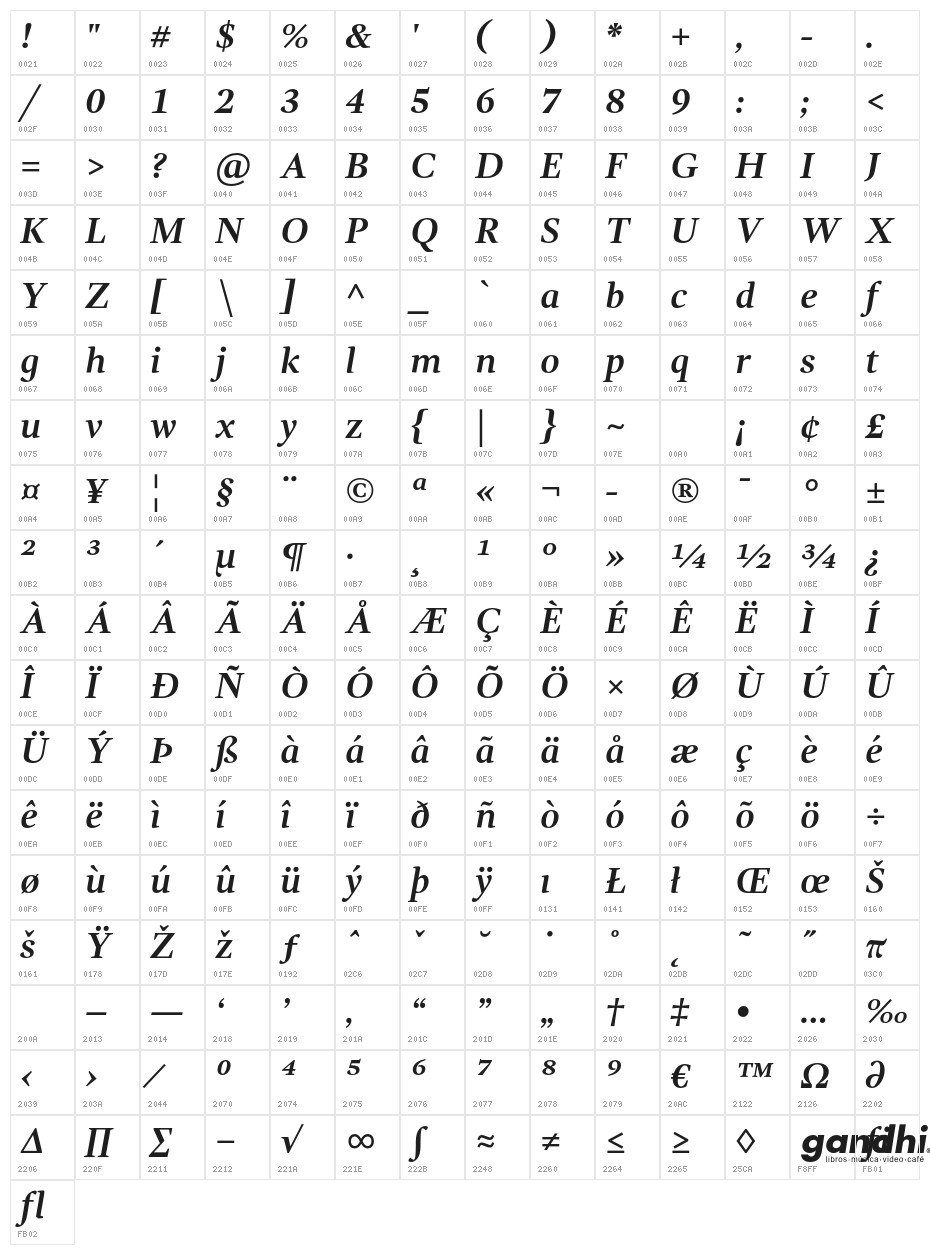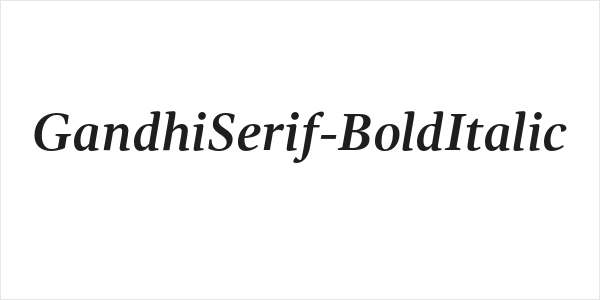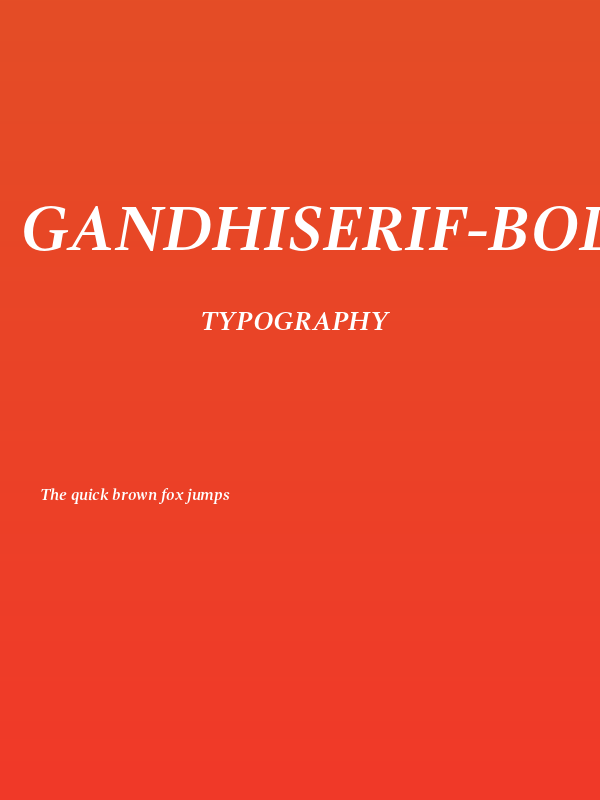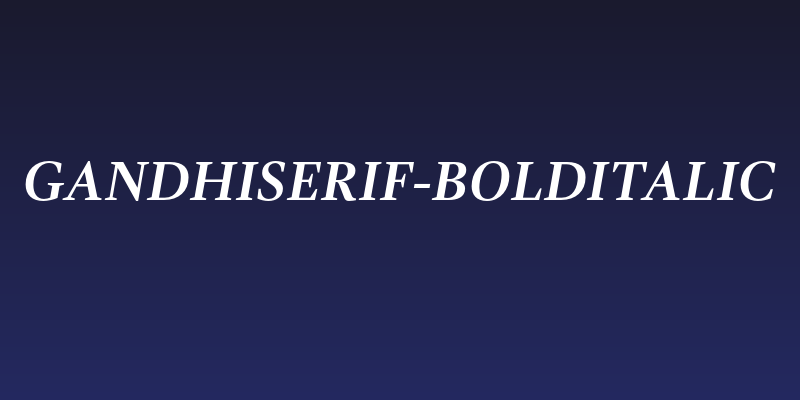
GandhiSerif-BoldItalic Font
GandhiSerif-BoldItalic Description
This font exhibits a classic serif style with a bold and italicized form, providing a sense of elegance and sophistication. The serifs are pronounced, adding a traditional touch, while the italic slant gives it a dynamic and flowing appearance. The bold weight ensures strong visibility, making it suitable for impactful text. The characters are well-proportioned, with a moderate contrast between thick and thin strokes, enhancing readability. The overall design is balanced, making it versatile for various design needs.
| Use Case | Headlines, Logos, Editorial design |
| Proposed Projects | Ideal for book covers, formal invitations, branding materials, and editorial design. |